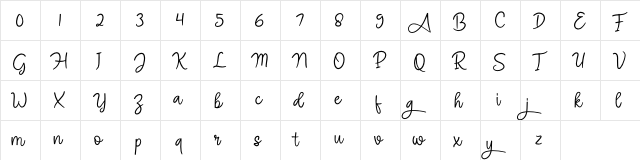
Angel Signature Regular
| Designer | aminmario studio |
Design Context for Angel Signature Typeface
Angel Signature is a composed and adaptable typeface that performs quietly and consistently across a wide range of design contexts.